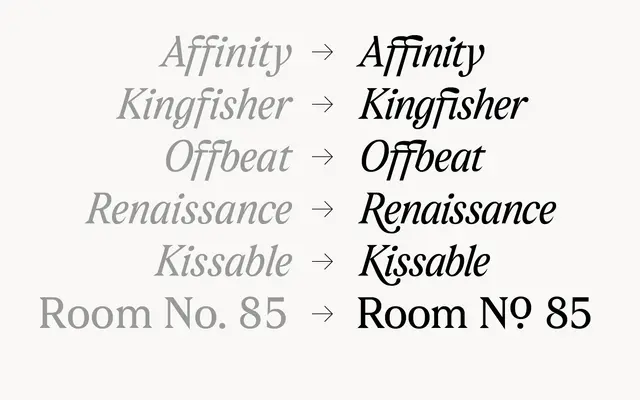
Sfizia specimen from atipo foundry
A transitional serif from atipo with a regular, a bold and two italics, including a swashier alternate italic.
Sfizia is a transitional serif from atipo foundry that ships with a Regular and a Bold roman plus two italic cuts. The second italic, labelled Italic No. 2, leans into more decorative letterforms with extra flourishes, giving designers a quieter italic for body copy and a more expressive one for display lines and titles. A neat fit for editorial, packaging and identity work that wants the calm of a transitional serif with a clear lever for personality.
A transitional serif released with a regular and a bold roman plus two italic variants, the second of which carries swashier display flourishes.